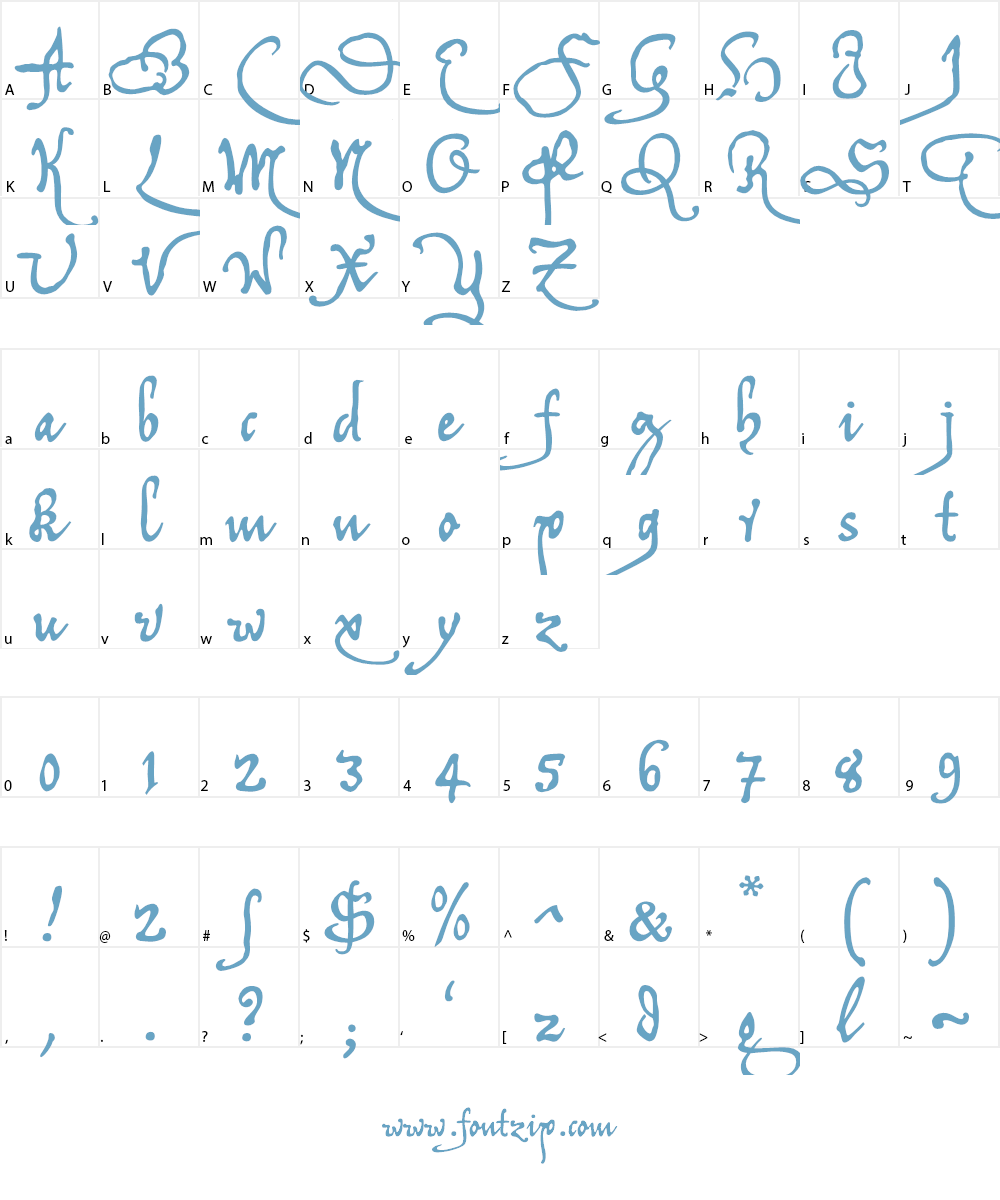
As far as my understanding of the Danish language goes -- which, I'm sorry to say, equals two timid steps into a huge total darkness --, I'm lead to believe that I may be indebted for this font to Christian IV's court chemist Peter Payngk, who lived from about 1575 to about 1645. It seems he used to collect recipes for medical preparations, copying them into some large volume(s) of his own. One of those recipes, on show among the digital exhibits of the Royal Library of Denmark (= Det Kongelige Bibliotek), is thought to have been authored by the great astronomer Tycho Brahe. Called Elixyr Tychonis, it is listed as 'Description of a medecine (...) against the Plague, and all Morbos Epidemicos', offered to the queen of Denmark by Lady Sophie Brahe, sister of the astronomer (no date is mentionned).
The person who copied Tycho's recipe (Peter Payngk, or maybe an assistant of his), used Antiqua writing when naming the preparation's ingredients, and a contemporary current hand, when detailing the instructions. My font is mostly based on the Antiqua parts of the manuscript.
A major Update has been going on, for the 2010 version. The l and t have been reworked, to sit on the line now. Three alternate characters -- the g, y, and p -- have changed places with the regular ones, and I've designed a new, modern-looking K (the original one was really a bit odd). Of course, like in all the other fonts, the composite glyphs have been redesigned, and the dashes have become longer.
The list of alternate characters has changed in 2010. These are now:
an alternate d on the 'less' sign
an alternate -- i.e. the formerly regular -- g on the 'more' sign
an alternate z on the right bracket (sitting on the line, as opposed to the regular one)
an alternate l on the left bracket
an alternate -- i.e. the formerly regular -- y on the right curly bracket
an alternate -- i.e. the formerly regular -- p on the left curly bracket
an alternate r on the 'bar' and 'broken bar' sign
a double long s on the long s sign
the double f ligature, and the original K on the fi and fl. In case those aren't reachable on your computer, please try the masculine and feminine ordinal indicators, or the 'less-than or equal to' and the 'greater than or equal to' signs.
There is no number sign in this font. In its place, you'll find a long s.
The pair of winged beasts on the micro sign was inspired by a detail from a very elaborate Lombardic initial.